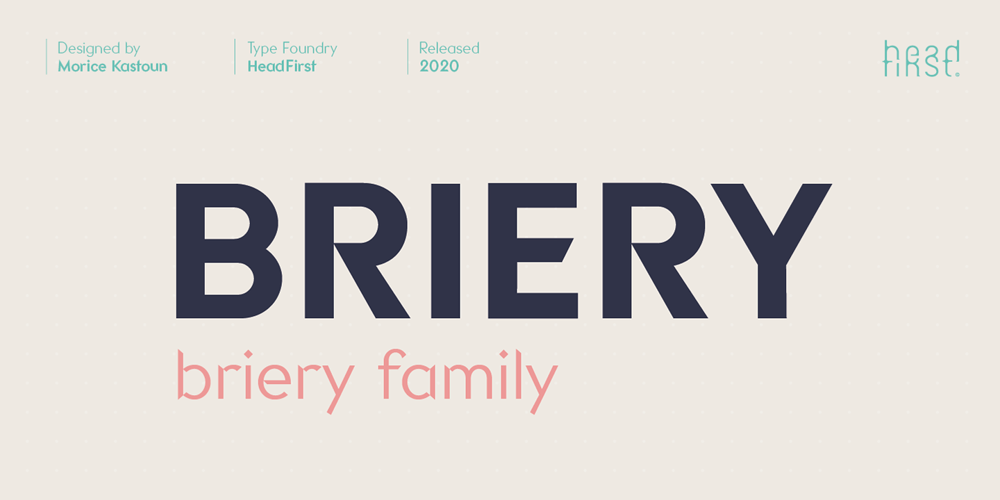
Briery Font Family was designed by Morice Kastoun and published by HeadFirst. Briery contains 9 styles and family package options. Briery is a unique san serif family, crafted for both display & body copy use — Available in 5x weights. It is a blend of original & functional, with a range of alternative characters created to inspire your design imagination. Designed by Morice Kastoun this typeface incapsulates his commitment, craft and expertise in typeface design for over 20years.